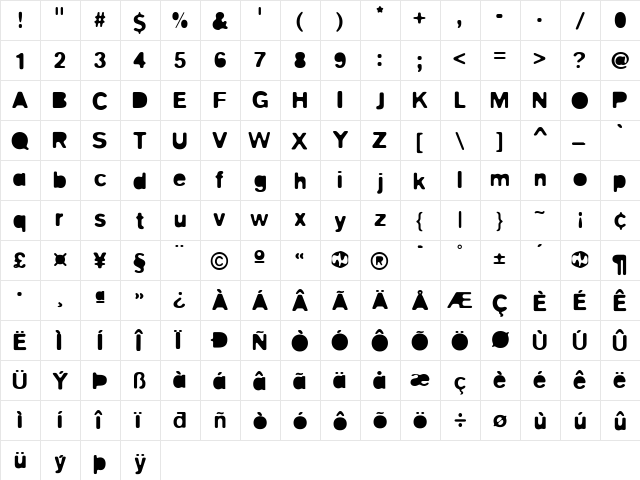
Blitz Regular
| Foundry | Biliz the kids |
| Designer | biliz |
Design Context for Blitz Typeface
Blitz takes a measured approach to typography — its balanced proportions and neutral character make it a reliable workhorse for both digital and print work.